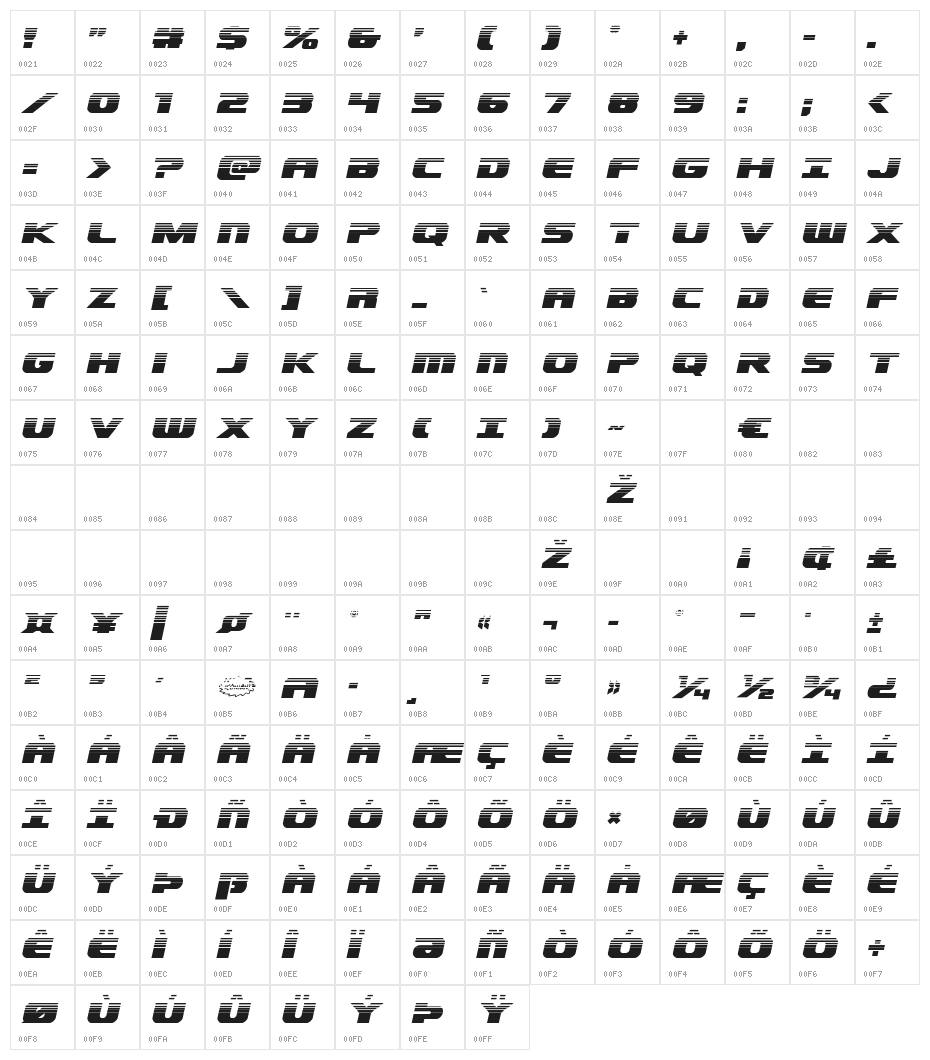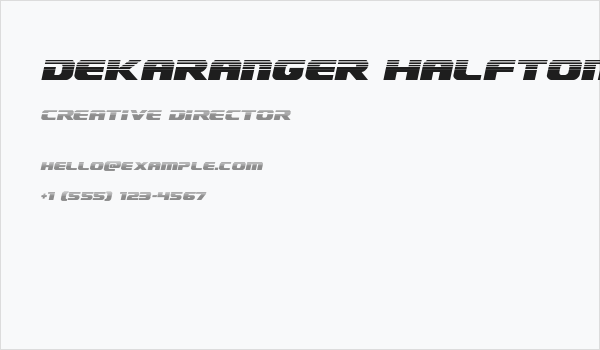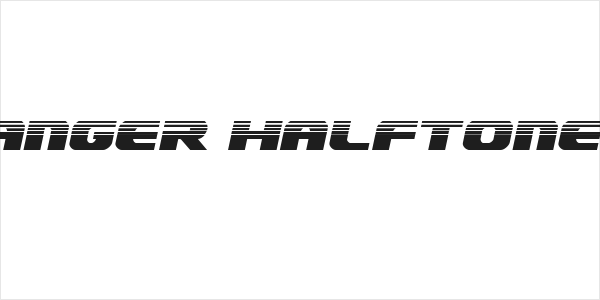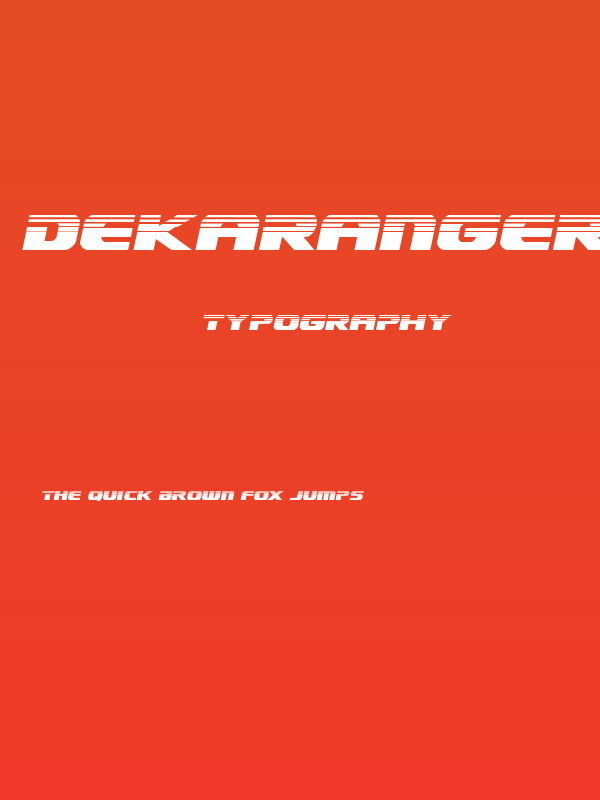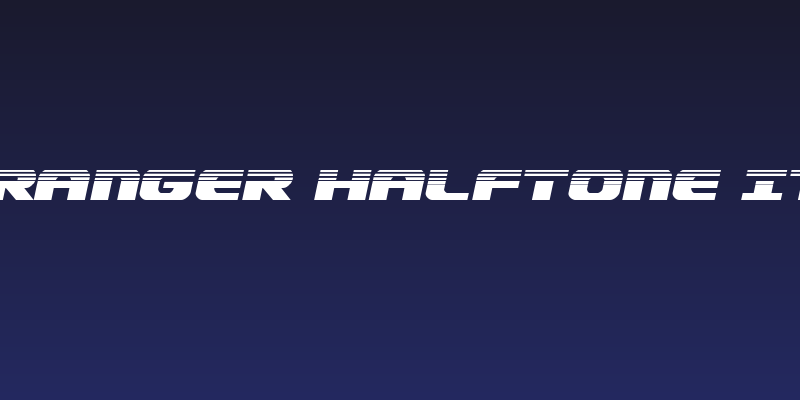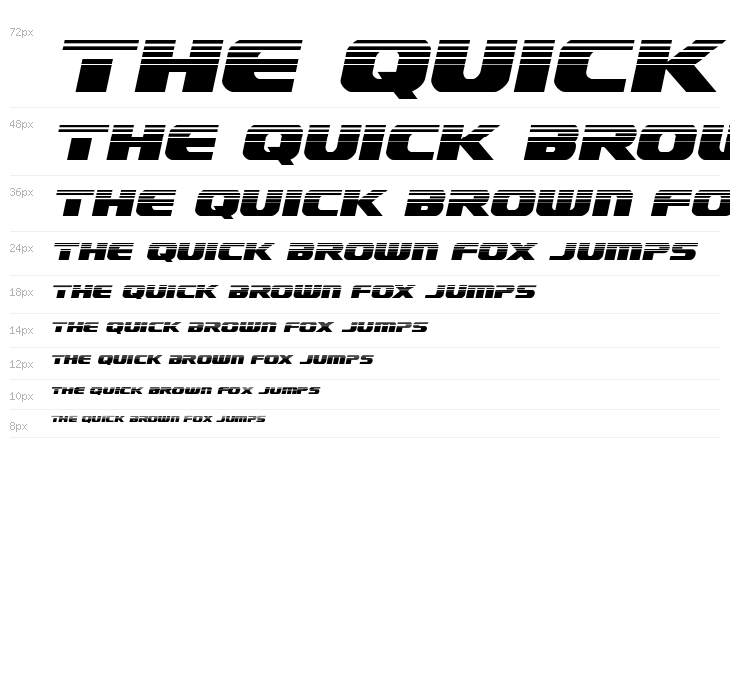
Dekaranger Halftone Italic Font
Dekaranger Halftone Italic Description
This font features a bold, futuristic design with a halftone effect that gives it a dynamic and energetic appearance. The characters are italicized, adding a sense of motion and speed. The uppercase and lowercase letters maintain a consistent style, with sharp angles and a geometric structure. The numbers and special characters are equally bold and stylized, making them stand out. The halftone pattern creates a unique texture, enhancing the visual interest and making it suitable for eye-catching designs.
| Proposed Projects | Ideal for sci-fi themed projects, video game titles, posters, and branding that requires a modern and dynamic look. |